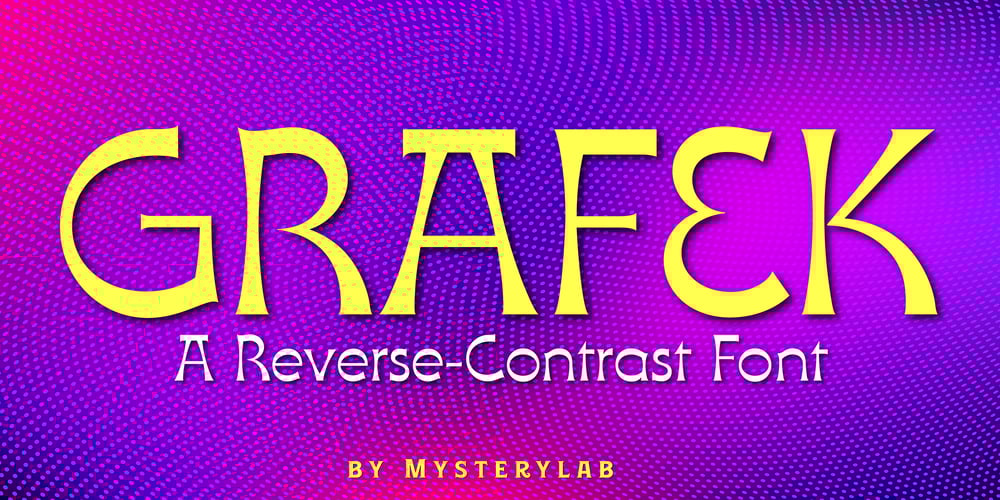
Grafex Font Family was designed by Mott Jordan and published by Mysterylab. Grafex contains 1 styles and family package options. Grafek is a unique reverse-contrast font with tapered vertical strokes and heavier horizontals on the top and bottom. This typeface is loaded with individual character, bolstering its excellent legibility with a moderately extended width. It’s a strong choice for large headlines, web banner graphics, and branding/logo usages. It’s got a high-end and elegant flair on shorter words, especially when choosing an all lowercase lettering design, for example on a logo treatment. It has a whiff of a nautical, antique map vibe, and even conjures up a hint of Oceania and Tiki-style graphics. Grafek will prove to be a great choice on book and magazine titles, and its width lends itself easily to wide mega-scaled outdoor marquee graphics and billboards.